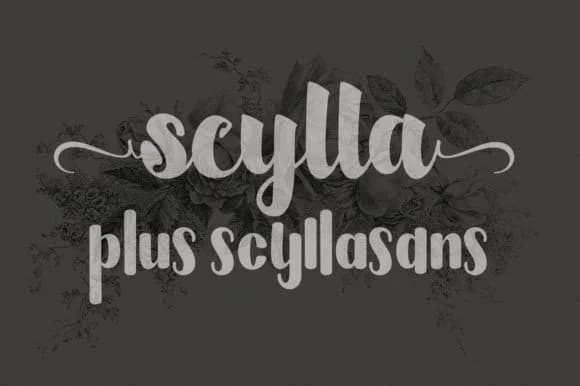
Scylla by Artisans is a bold handwritten script that merges elegant letterforms with striking visual presence, offering flexible characters designed to command attention across creative projects. The font's dynamic script personality makes it particularly well-suited for sophisticated wedding invitation suites, where its bold weight and clear letterforms ensure readability without sacrificing the refined elegance such designs demand. Beyond celebratory applications, Scylla excels at luxury cosmetics branding and boutique beauty packaging, visual contexts where the script's distinctive personality helps products stand out in competitive markets. The font performs equally well for custom stationery systems, podcast artwork and show branding, and restaurant or cafΓ© menu design where bold typography signals both sophistication and approachability. The flexible character variations ensure you maintain consistent letterform quality whether setting a single dramatic headline, composing invitation systems with envelope designs and coordinating inserts, or building branded collateral suites across multiple touchpoints. The versatile character set delivers reliable performance across both print and digital applications, adapting seamlessly to different design contexts and scaling needs. Whether crafting standalone accent text or extended typographic treatments, Scylla provides the boldness and personality your projects deserve. Grab Scylla on Creative Fabrica and discover how this font brings character to your creative work.
- Elegant, Flowing, Scylla
Scylla Font is a script font that shines as a display or heading face. Pair it with a clean sans-serif or serif font for body text β the contrast creates a clear hierarchy while the two styles stay balanced and easy to read.
Scylla Font